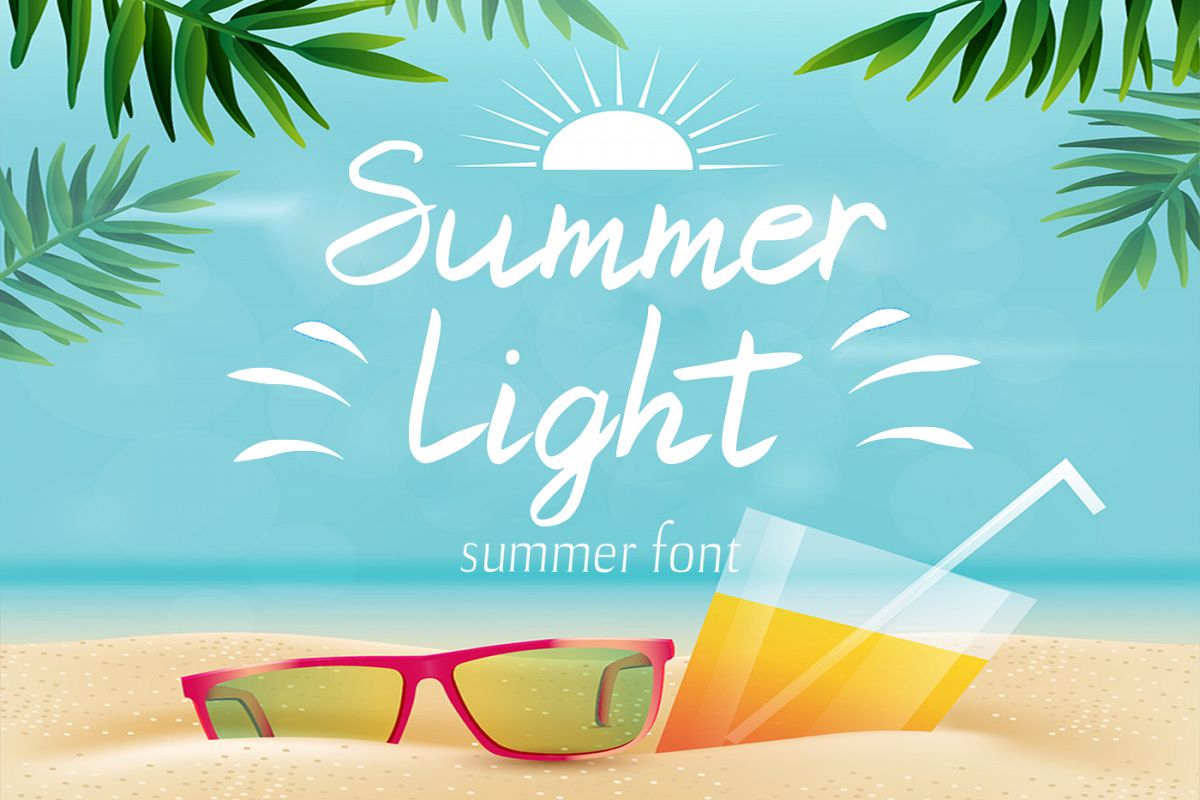
Summer Light Font
It's a wonderful font with a unique, detailed and handmade look. These fonts look amazing in all caps with a wide-set spacing if you want to try a classy look, or beautiful on its own in capital and lowercase letters for something completely timeless. Perfect for gorgeous logos, displays, headers, invitations, save the dates, weddings, titles, web layouts, and branding, etc.